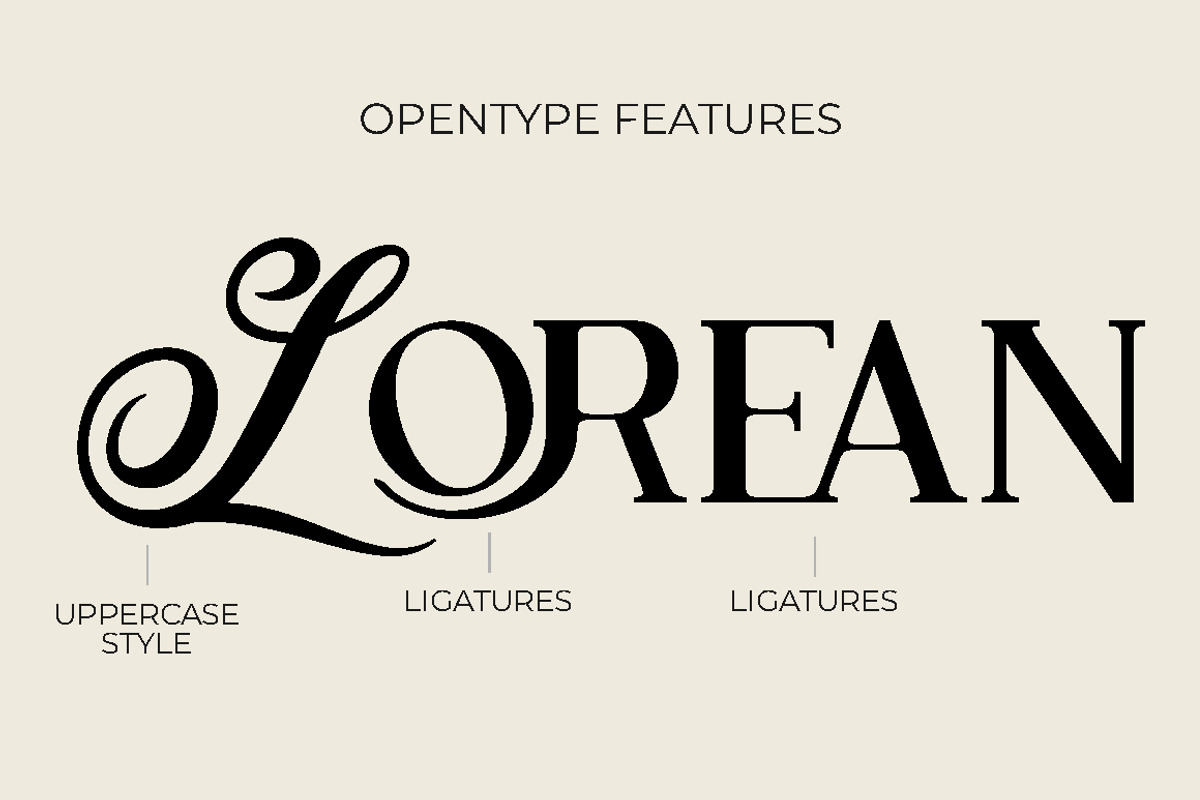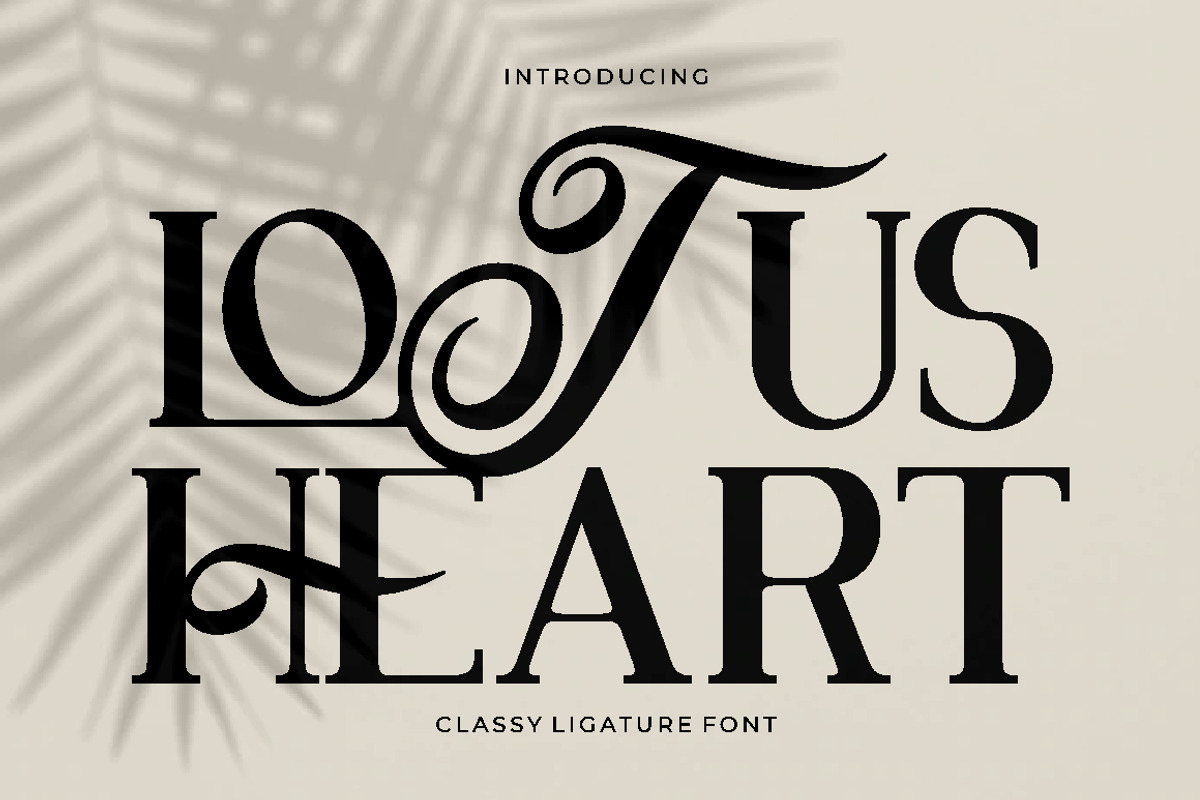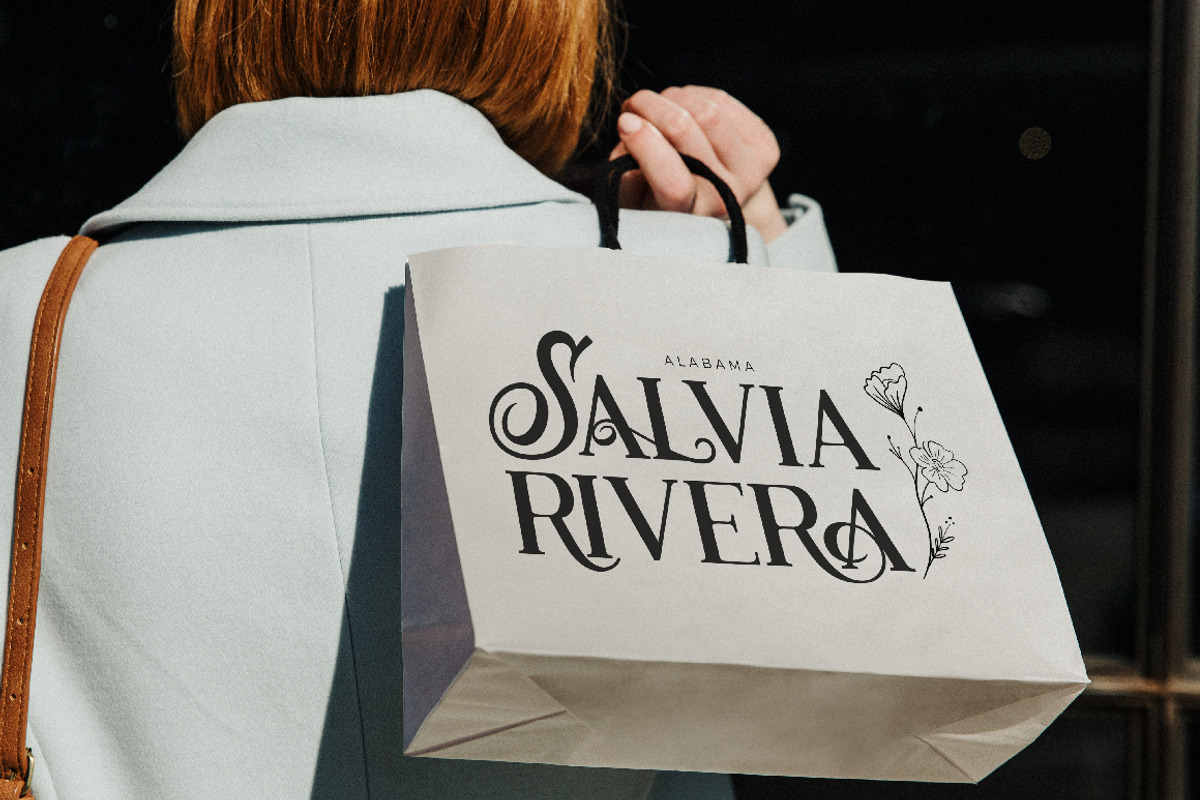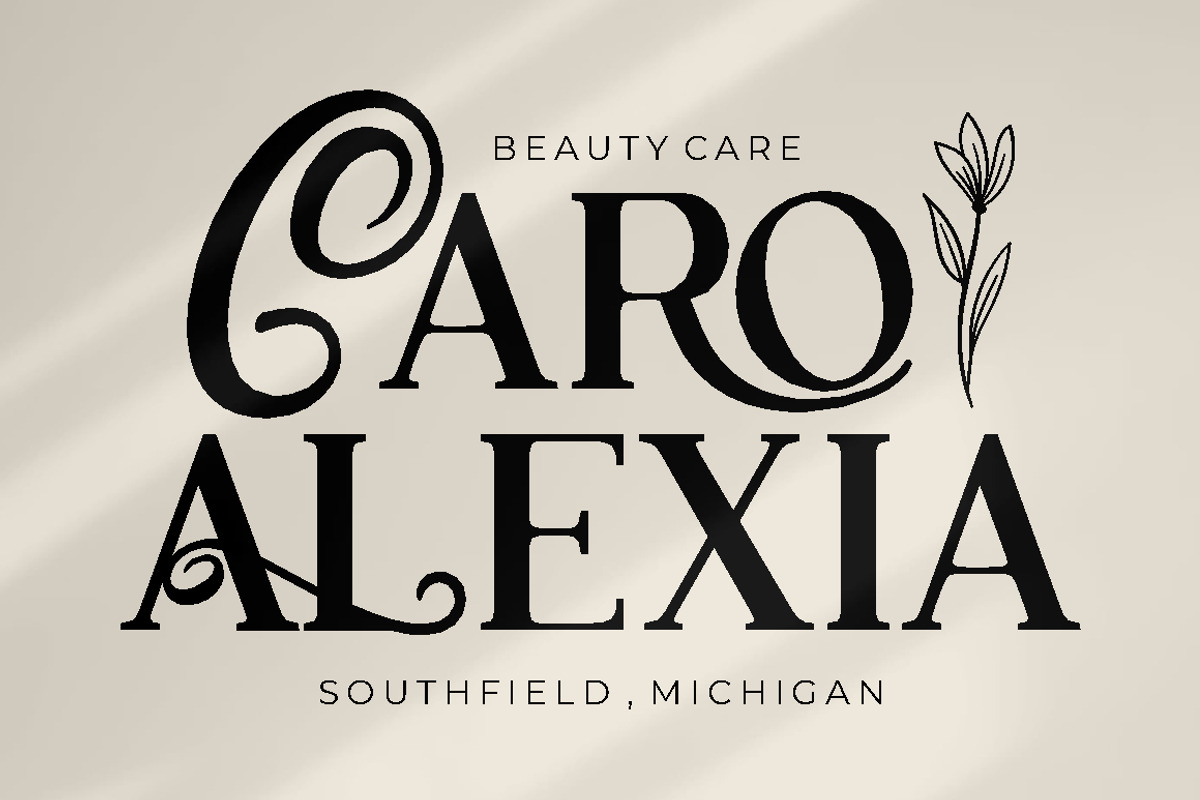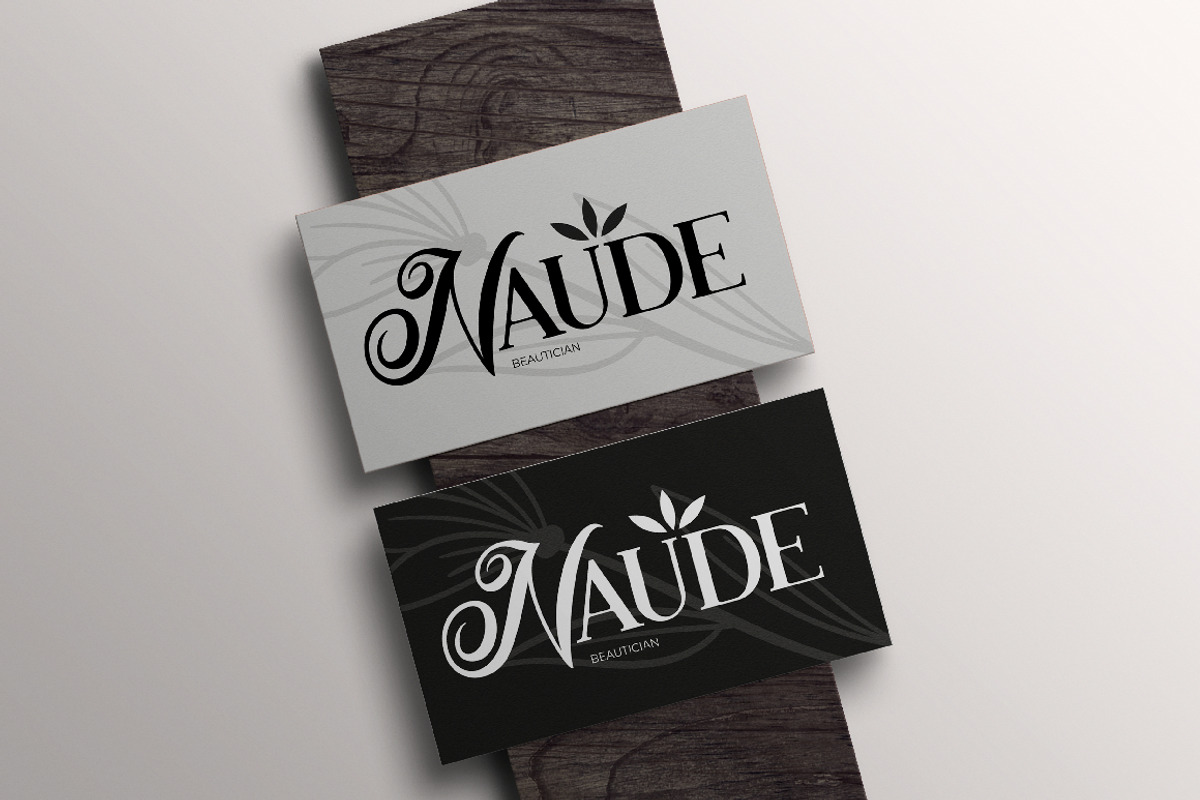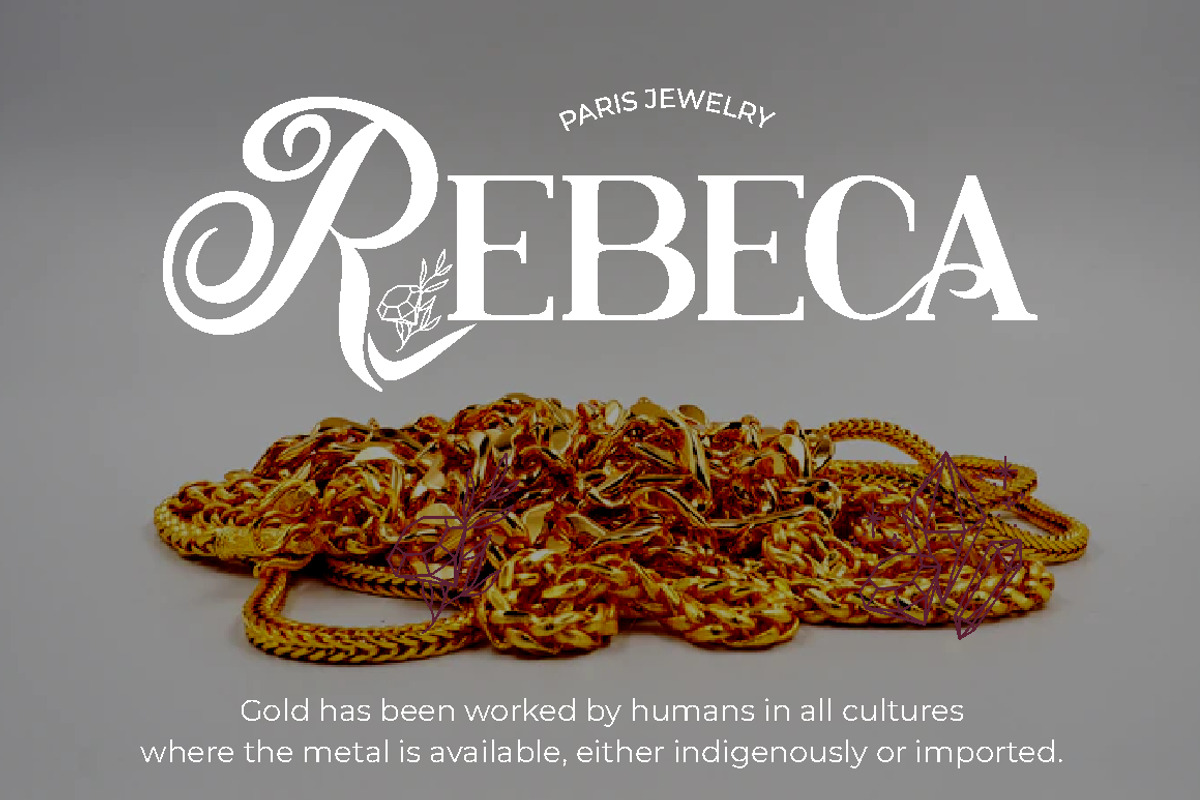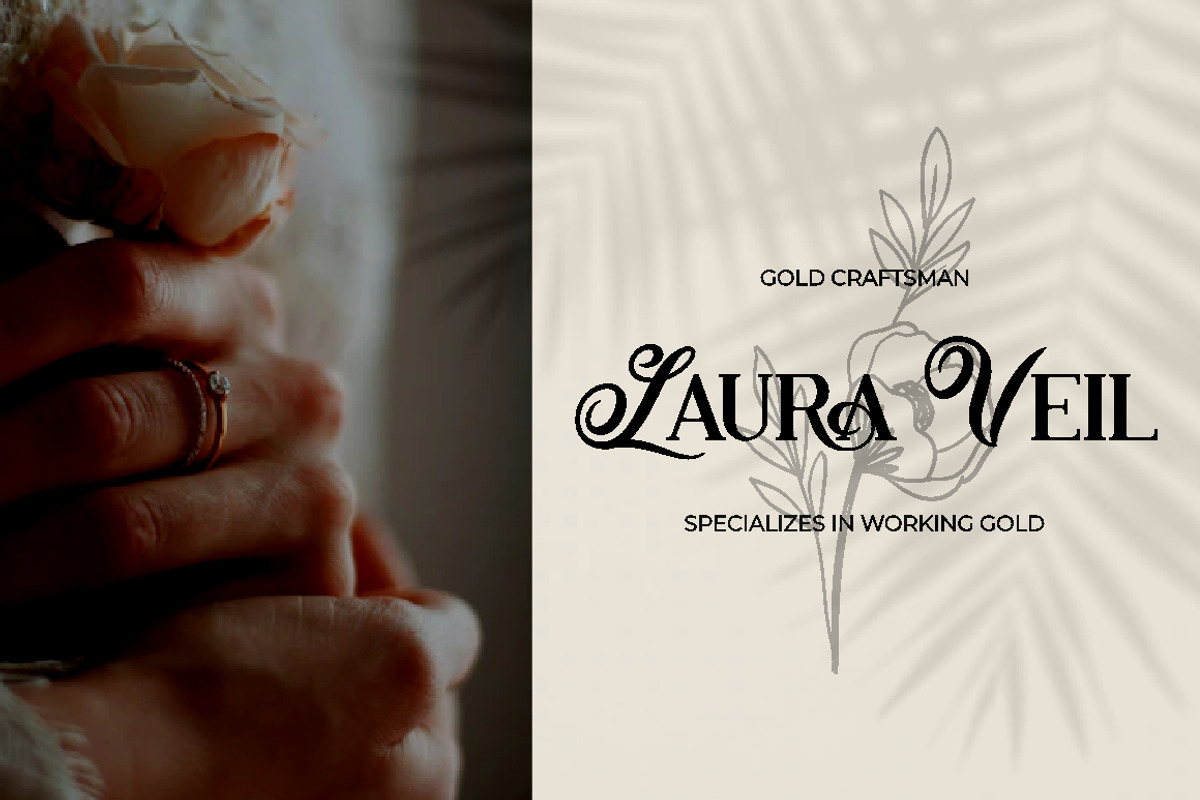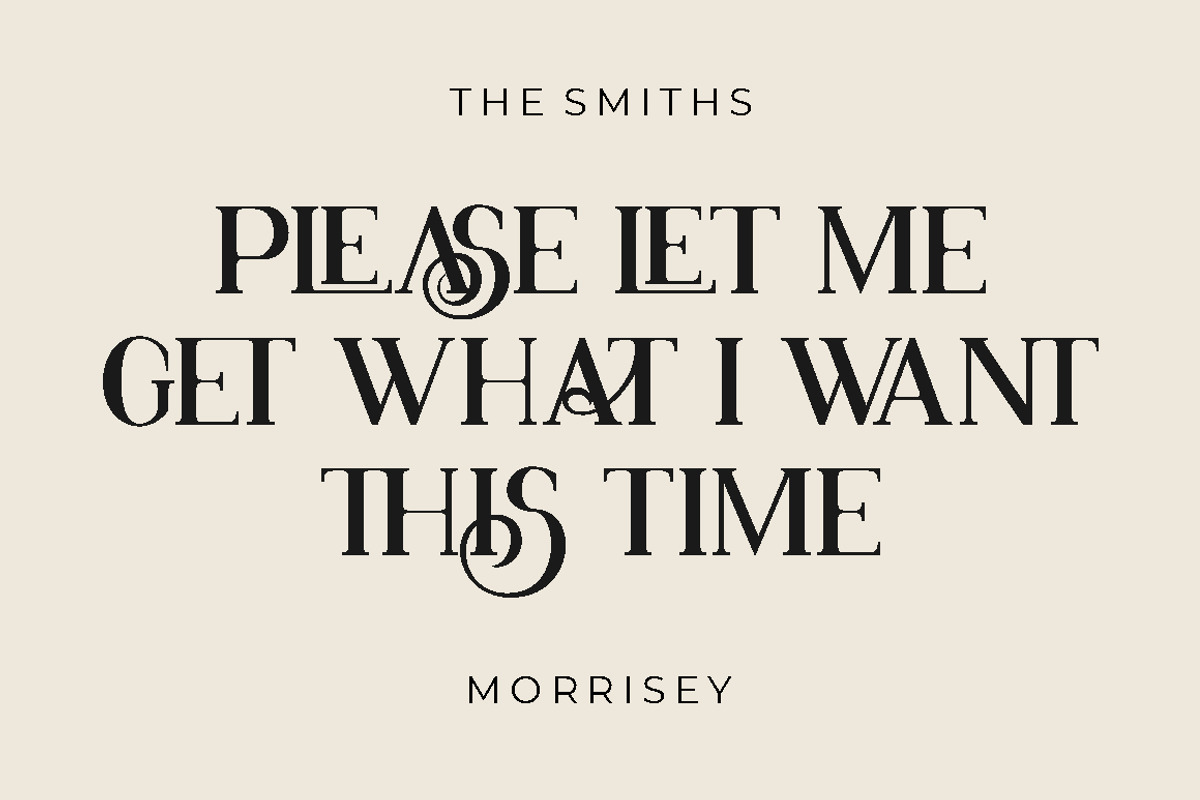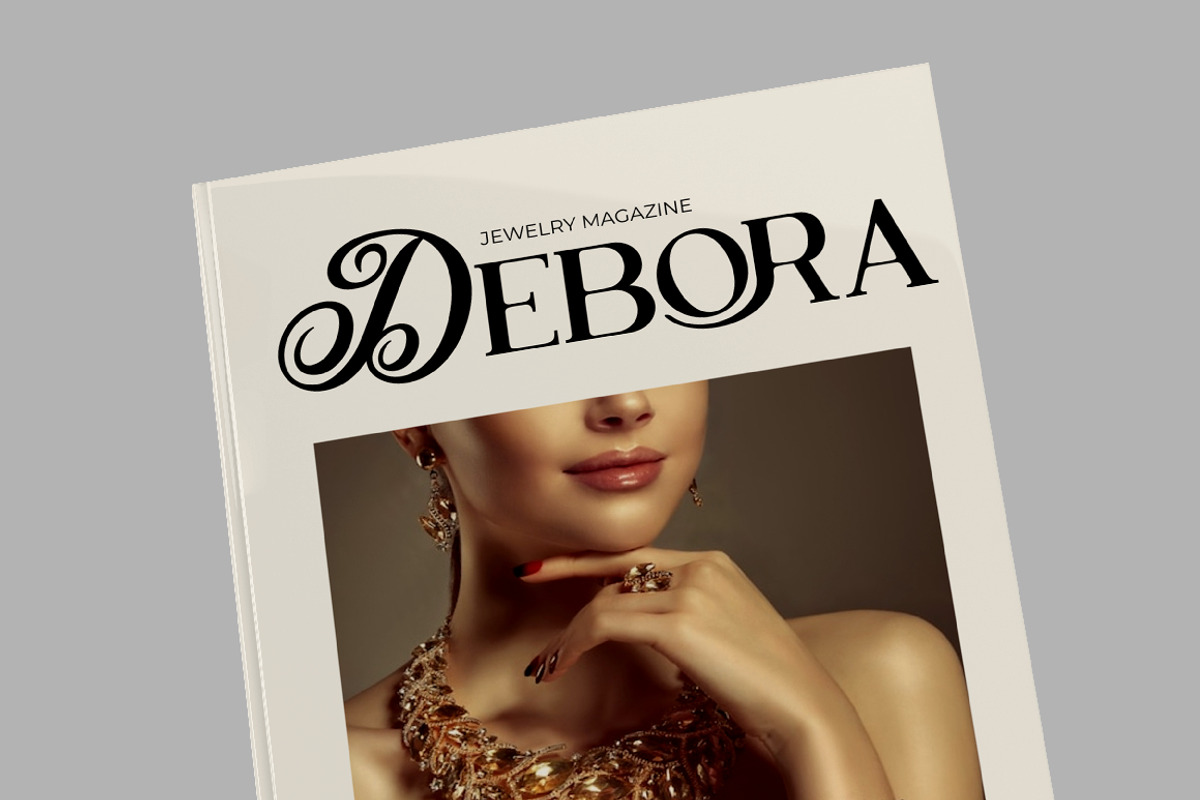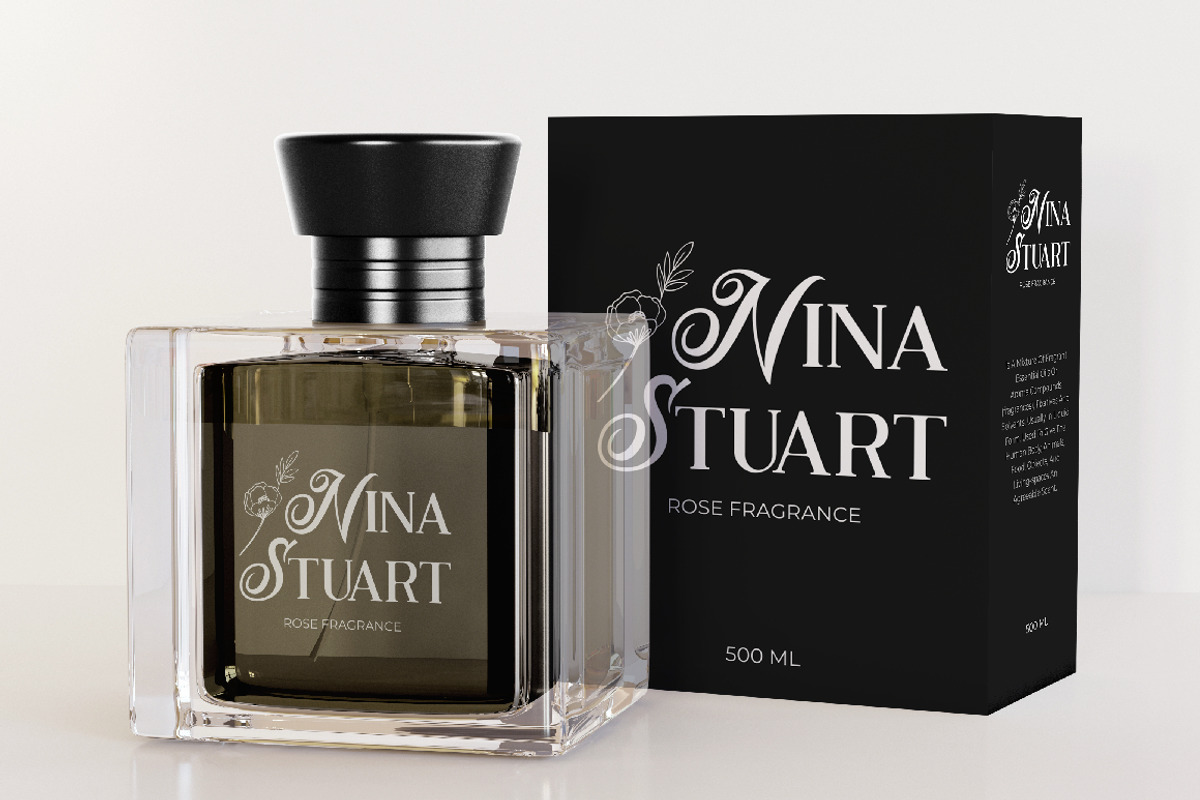
Lotus Heart - Classy Ligature Font
Lotus Heart is a stunning and luxurious display font that exudes sophistication and elegance. This font is the perfect choice for those looking to add a touch of class to their design projects. The idea behind the creation of Lotus Heart was to capture the essence of luxury and elegance in a typeface. Its classic and timeless style is perfect for high-end product branding, fashion, beauty, logos, book covers, posters, and flyers.
Lotus Heart is a versatile typeface that can be used in a variety of design projects. It's a perfect match for any project that requires a touch of luxury and elegance, such as high-end product branding or fashion. This font is perfect for creating logos, book covers, posters, and flyers that will stand out and make a statement.
The font comes with various features, including uppercase and lowercase letters, alternates, and ligatures, which can be accessed using OpenType technology. Additionally, this font includes number, punctuation, and symbols, making it suitable for a wide range of design projects. It also supports multiple languages, making it accessible to users from different regions.
Lotus Heart is a classy and elegant ligature font that is perfect for adding a touch of sophistication to any design project. Its versatility, along with its classic and timeless style, makes it an excellent choice for product branding, fashion, beauty, and many more design projects. With Lotus Heart, you can create stunning designs that will leave a lasting impression on your audience.